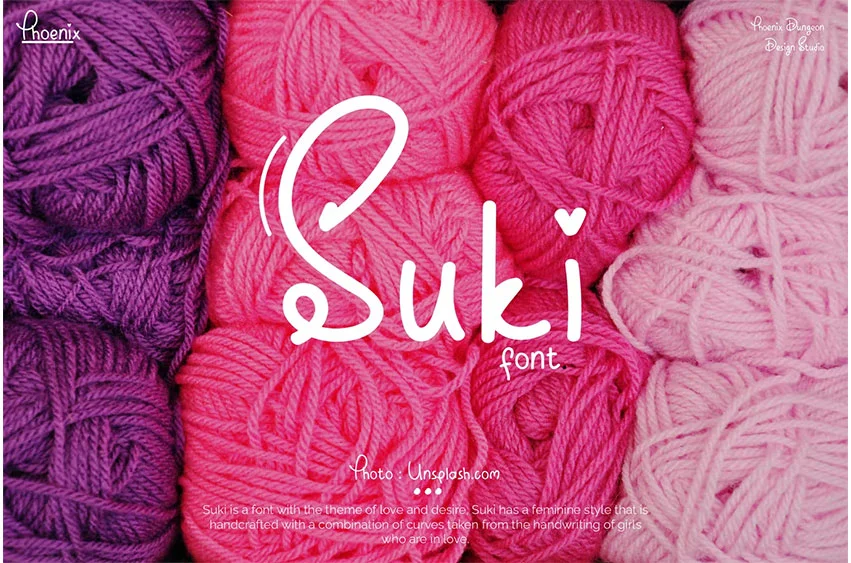
Suki Font
Suki Font with the theme of love and desire, Suki has a feminine style that is handcrafted with a combination of curves taken from the handwriting of girls who are in love.